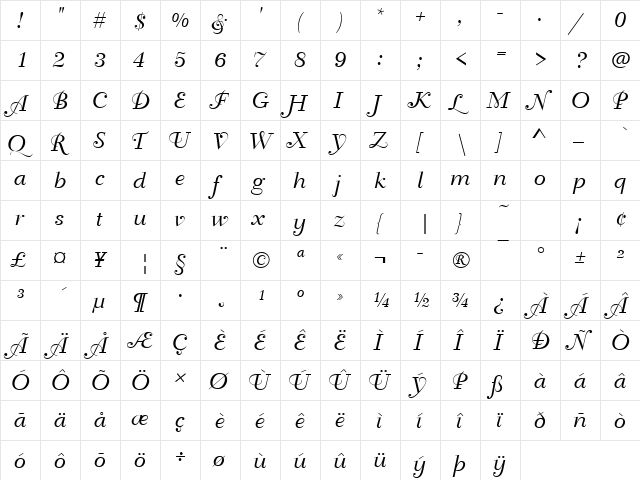
URWBelearisDReg Regular
Design Context for URWBelearisDReg Typeface
URWBelearisDReg is a composed and adaptable typeface that performs quietly and consistently across a wide range of design contexts.